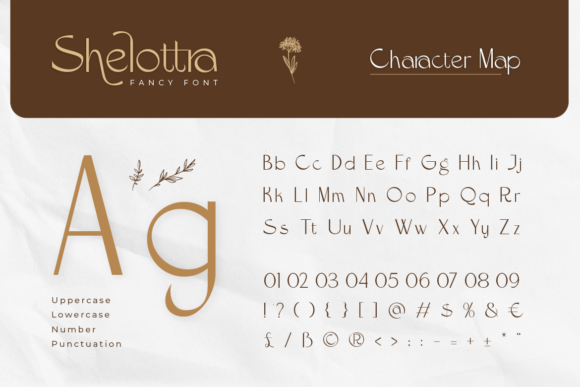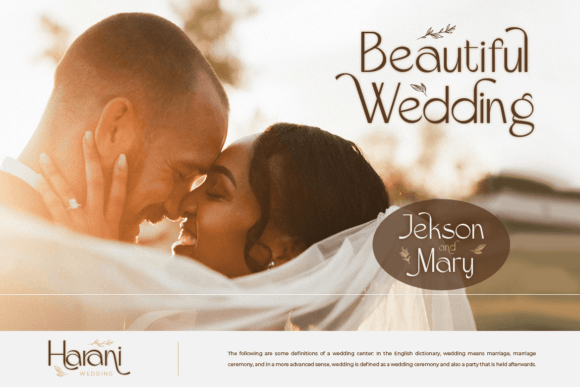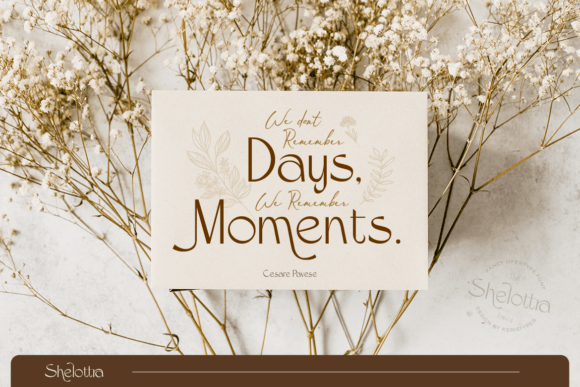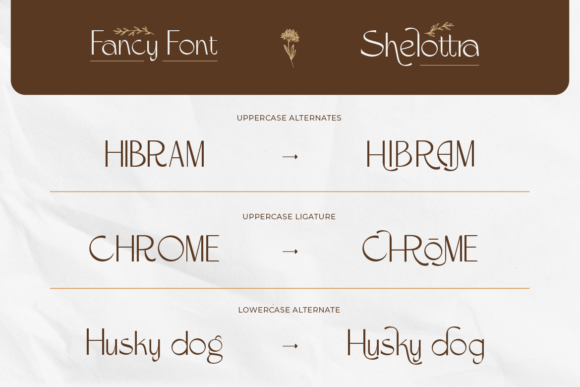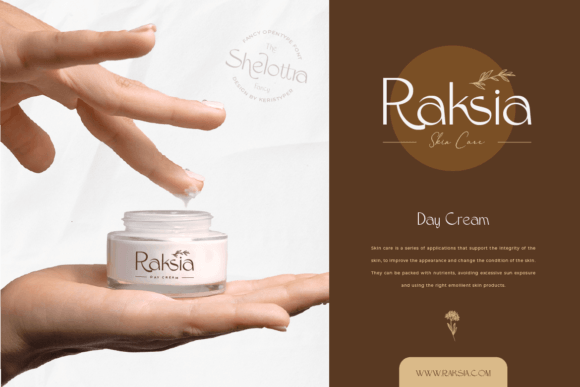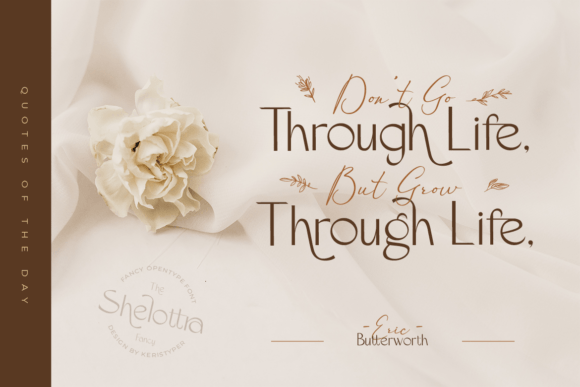
Introduction to Shelottra Font
As designers, we’ve all been there – staring at a blank canvas, trying to conjure up the perfect visual representation of our creative vision. For some, it’s a movie title that needs to transport viewers to another world, while for others, it’s a logo that must encapsulate the essence of a brand. Whatever the project, having the right design resource can make all the difference.
That’s where the Shelottra Font comes in – a high-quality, elegant beauty font that adds a touch of magic to any design. With its expressive shapes and characteristics, this font is perfect for bringing your creative project to life. Whether you’re working on a logo design, social media graphics, or even a book title, Shelottra Font is sure to elevate your work to the next level.
And the best part? The Shelottra Font is PUA encoded, making it easy to access all of the glyphs and swashes you need to create stunning designs. With a transparent background and free download, you can focus on what matters most – bringing your vision to life.
Key Features of Shelottra Font
- High-quality design for creative projects, including logos, branding, and digital art
- Transparent background, ideal for overlaying on images or videos
- Includes a wide range of characters, including Latin, Cyrillic, and Greek alphabets
- Designed to be scalable, with high-resolution support up to 1024×1024 pixels
- Perfect for designers and artists working on high-resolution designs, from posters to billboards
Honest Review: Shelottra Font
As a designer, I’m always on the lookout for high-quality fonts to enhance my creative projects. I recently stumbled upon the Shelottra Font, and I have to say it’s a great addition to my design resource library.
- ✨ Transparent background, making it easy to use on various backgrounds
However, I do have to mention a few limitations:
- ⚠️ Limited font sizes available, which may not be suitable for all design needs
- ⚠️ Not all characters are available, which can be frustrating for designers who need to use special characters
Overall, I’m impressed with the Shelottra Font. While it’s not perfect, it’s a great free download that can add a touch of elegance to any design project. With a little creativity, I can work around its limitations, and it’s definitely a font I’ll be using again in the future.
Tips for Getting the Most Out of Shelottra Font
Use the Shelottra Font on a transparent background to create a clean and modern design.
Combine the Shelottra Font with other design elements to add visual interest to your project.
Experiment with different font sizes and styles to create a unique look.
Common Use Cases for Shelottra Font
Shelottra Font is ideal for creating logos, business cards, and other
Alternatives to Shelottra Font
Pacifico is a high-quality, elegant script font that is perfect for creative projects requiring a touch of sophistication. It features a transparent background, making it ideal for overlaying on images or other design elements.
Compared to Shelottra Font, Pacifico has a more refined and polished look, making it suitable for formal and professional designs. It’s a great alternative for designers who want a high-end feel without the need for complex customization.